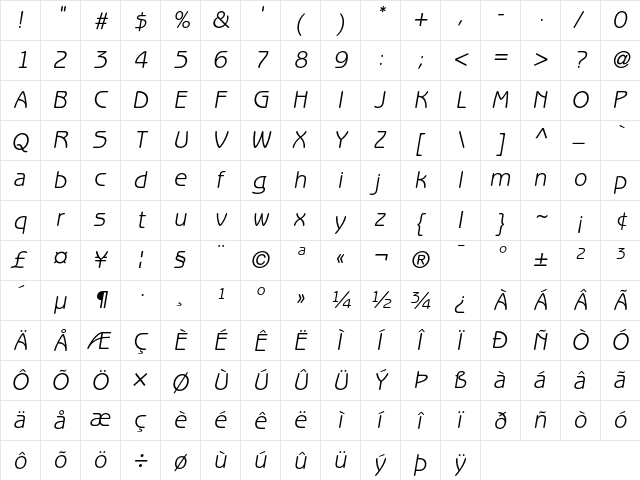
ITC Benguiat Gothic Book Oblique
Design Context for ITC Benguiat Gothic Typeface
ITC Benguiat Gothic has the quiet confidence of well-executed sans-serif typography: versatile, unobtrusive, and dependable at any size. Its italic angle brings a sense of urgency and motion to the letterforms.
Font Pairing: Works well alongside a characterful serif or display font that can carry the expressive load while ITC Benguiat Gothic handles the functional copy.
Pro Tip: Use ITC Benguiat Gothic for UI labels, navigation, and short-form body copy where clean legibility is the priority.